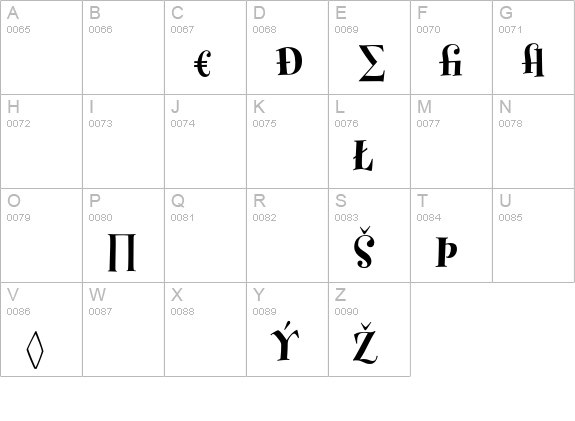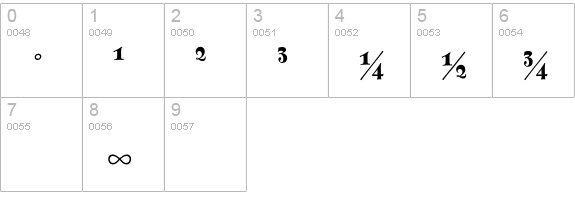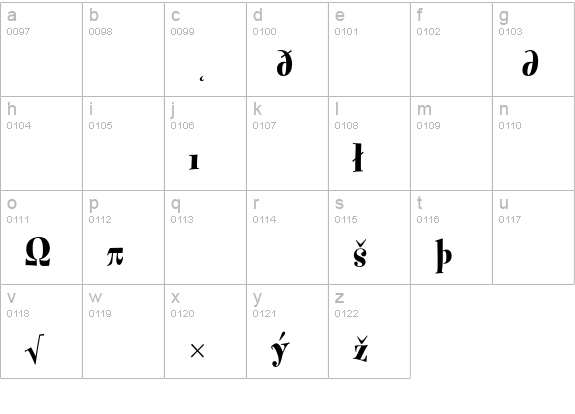
Fontesque-ExtraBoldExpert is a striking and commanding font that exudes strength and confidence. With its bold and expertly designed characters, this typeface is perfect for making a bold statement in your designs. The thick strokes and sharp angles give Fontesque-ExtraBoldExpert a modern and contemporary look that is sure to make your text stand out. The best part? Fontesque-ExtraBoldExpert is available for free download at FontsMarket.com. This means you can easily access this eye-catching font and use it in your projects without any cost. Whether you are designing posters, logos, or any other creative work, Fontesque-ExtraBoldExpert is a versatile font that will add a touch of sophistication and style to your designs. Don't miss out on the opportunity to enhance your projects with the stunning Fontesque-ExtraBoldExpert font. Download it for free today and elevate your designs to the next level.